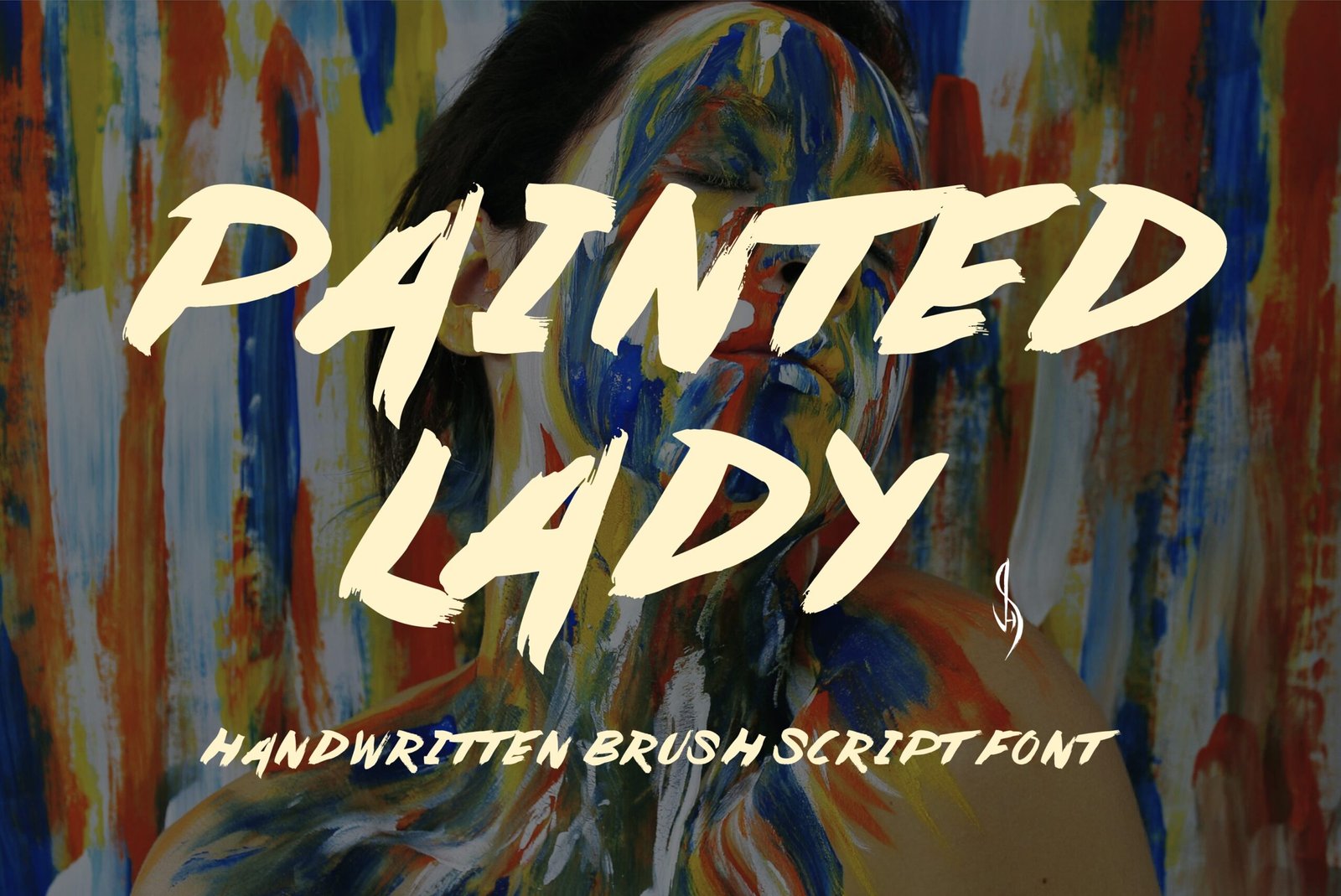
Painted Lady Font
Brush script font. “Painted Lady” Perfect for advertising and display purposes, including banners, book covers, shirts, posters, logos and much more!
Font includes all upper and lowercase letters, numbers, characters, euro characters and punctuation.